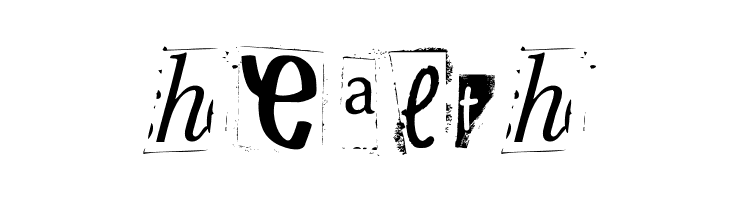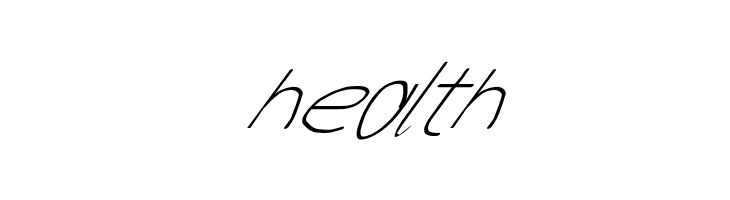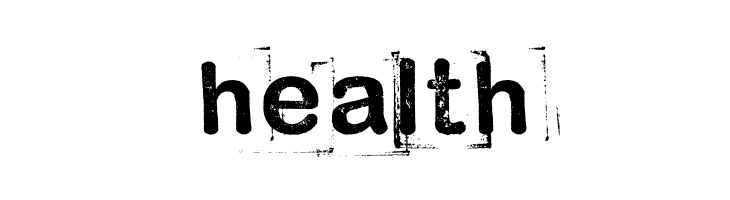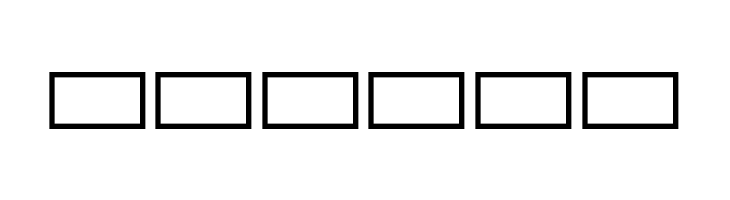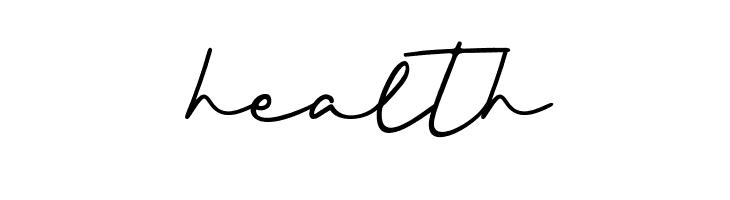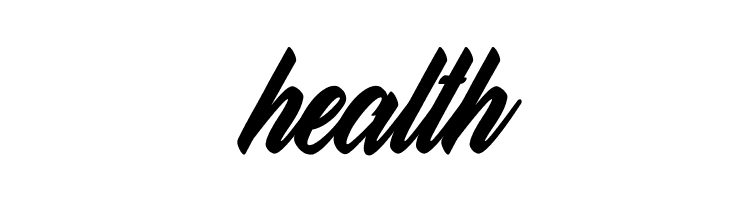
• TokayOSeven
A playful, decorative font with unique, whimsical designs in each character.
• InkInTheMeat-Tial
( Fonts by billyargel.blogspot.com - Billy Argel )
An ornate and decorative script font with intricate swirls and flourishes.
• Woodcutter Anonymous part 2
( www.woodcutter.es )
A collage-style font with a mix of eclectic and distressed characters.
• MewTooHand UltimateItalic Wide
• Anal-probe
( Fonts by Mr.fisk Fonts )
A bold, distressed font with a grunge, stamped appearance.
• Chess
A chess-themed icon font with bold, geometric piece designs.
• OpenDyslexicAlta Bold
( Abelardo Gonzalez - abbiecod.es )
A bold, accessible font designed to enhance readability with unique, distinguishable letterforms.
• Groovy Smoothie Laser Italic
A futuristic, bold, and italic font with smooth, rounded characters and high contrast.
• BetterSignature
( Ydhra Studio - creativemarket.com/ydhra )
A fluid and elegant handwritten font with smooth, continuous strokes.
• Love Strong personal Use Regular
( Billy Argel - billyargel.com/ )
A bold, dynamic script font with flowing, cursive letters and strong visual impact.